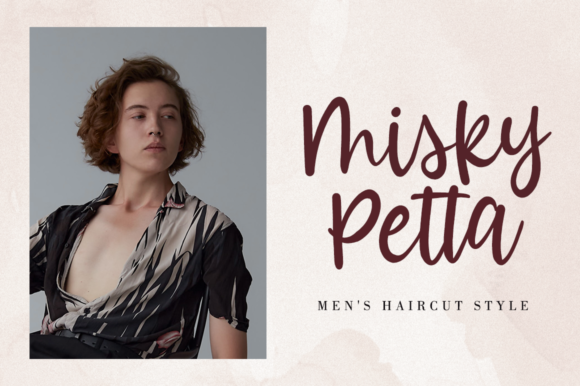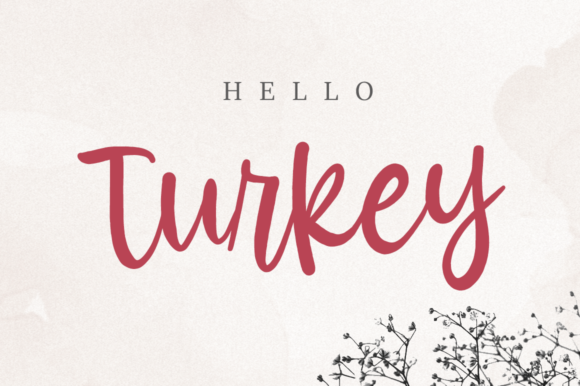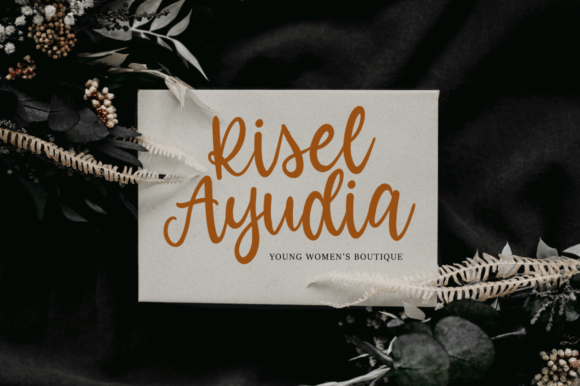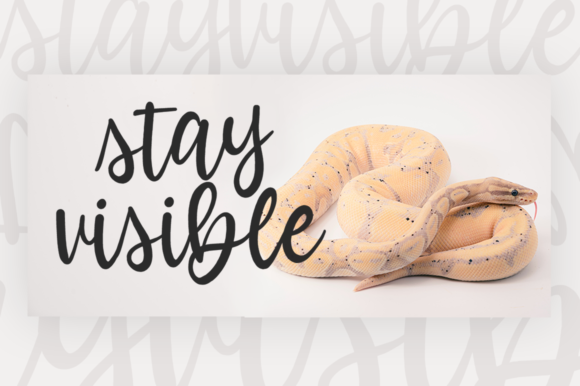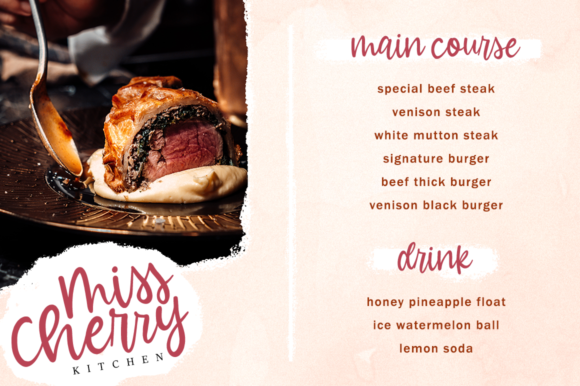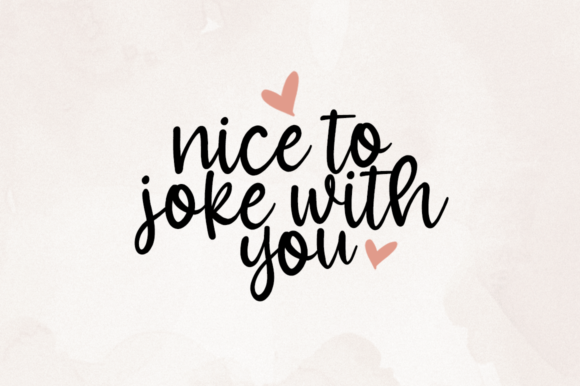
Introduction to Hermit Crab Font
Hermit Crab is a lovely script font featuring charming, playful characters that seem to dance along the baseline.
Add this font to your most creative ideas, and notice how it makes them stand out .
Key Features of Hermit Crab Font